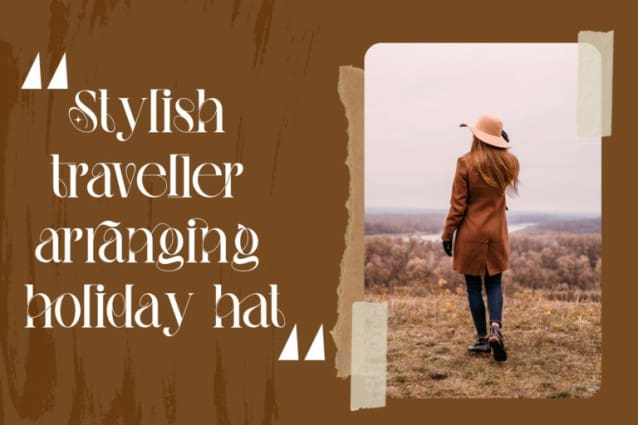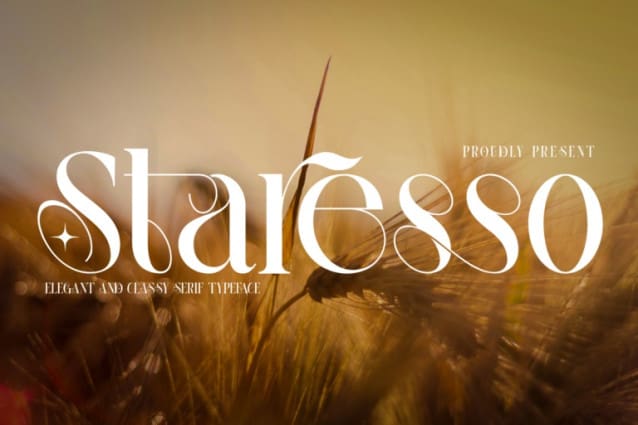
Staresso Font
Staresso Font – Elegant Serif Font inspired by the famous minimalist logo. Trendy, elegant, luxury, creative & modern style serif font for your new fancy projects. Perfect for the purposes of designing templates, brochures, videos, advertising branding, logos, invitation, layout design, elegant crafting, beauty design and more. Lot of ligatures will help you to create unique and original logo design or website header! Enjoy 🙂
Staresso Font was built with OpenType features and includes 100 ligatures, alternate, numbers, punctuation, and it also supports other languages.